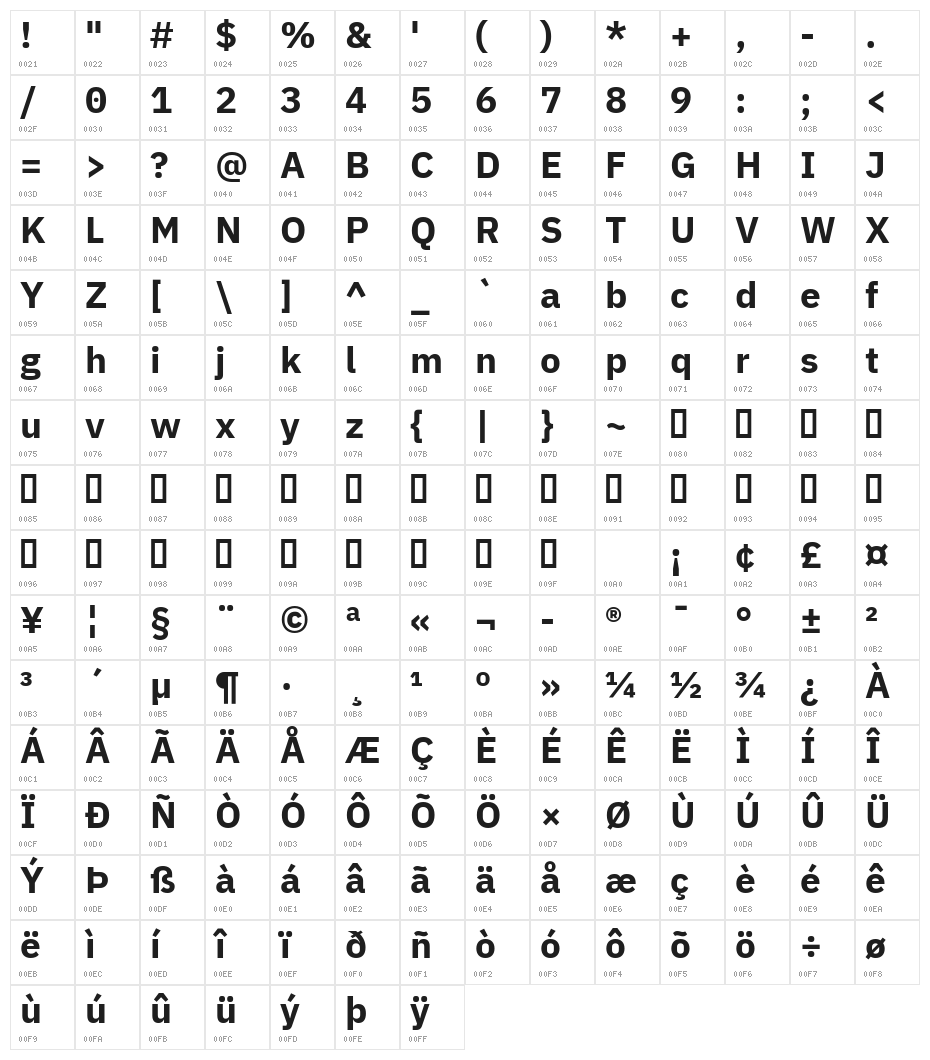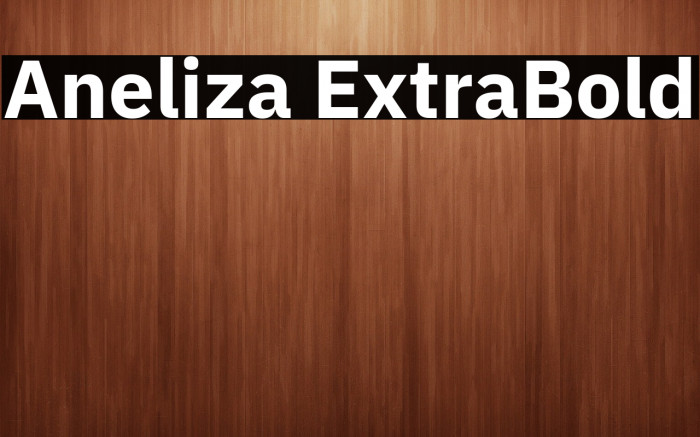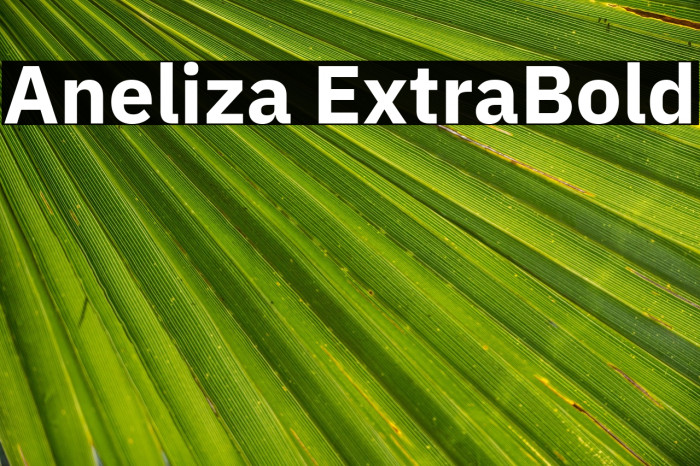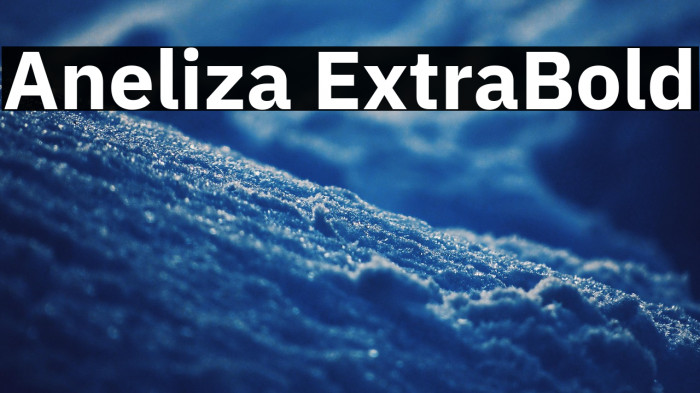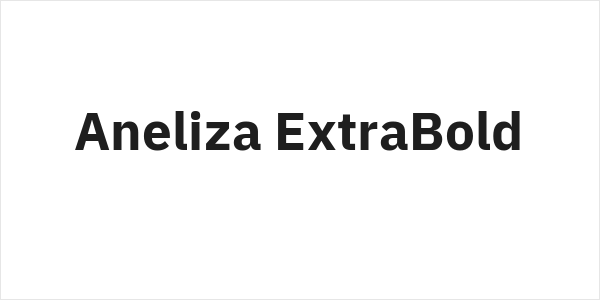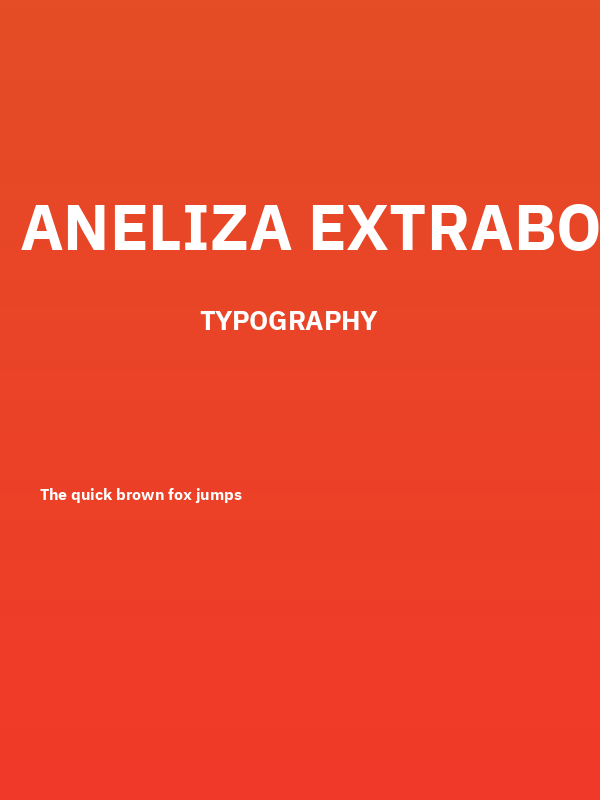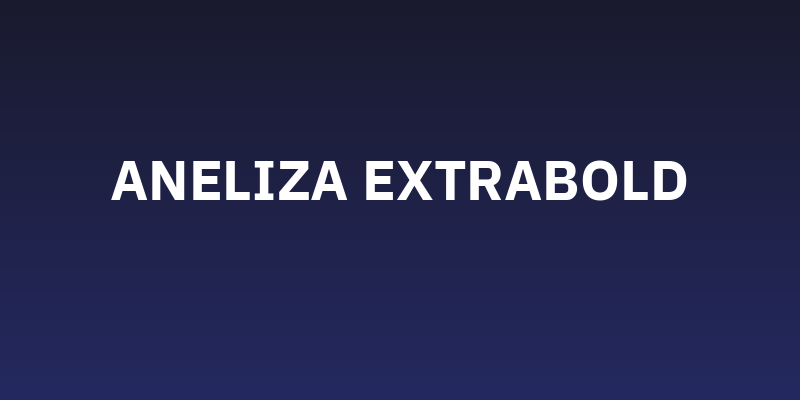
Aneliza ExtraBold Font
Aneliza ExtraBold Description
This typeface is characterized by its bold and robust appearance, featuring thick strokes and a strong presence. The letters are uniformly designed with a modern sans-serif style, providing a clean and straightforward look. The uppercase and lowercase characters maintain a consistent weight, ensuring readability and impact. The numerals and special characters are equally bold, complementing the overall design. This font is ideal for making statements with its clear and powerful visual appeal.
| Proposed Projects | Ideal for branding, headlines, posters, and any project requiring a bold, impactful typeface. |